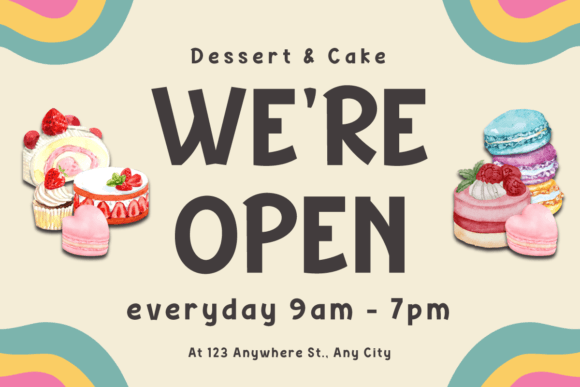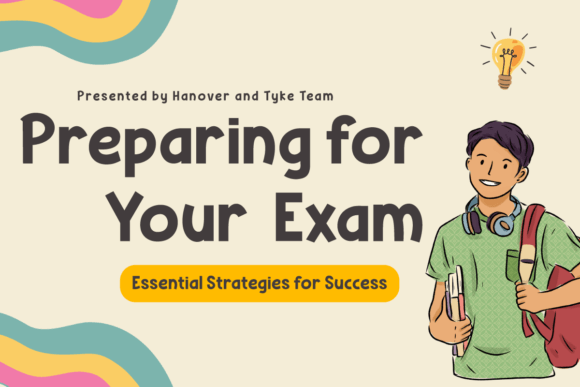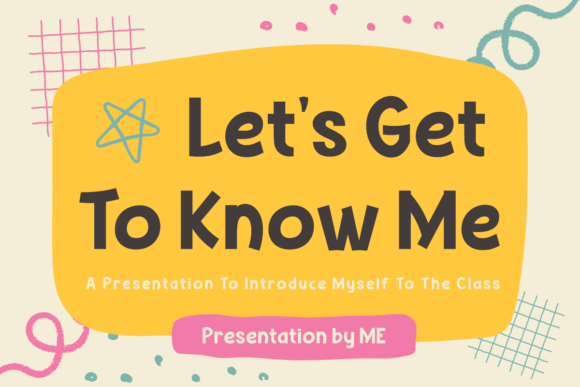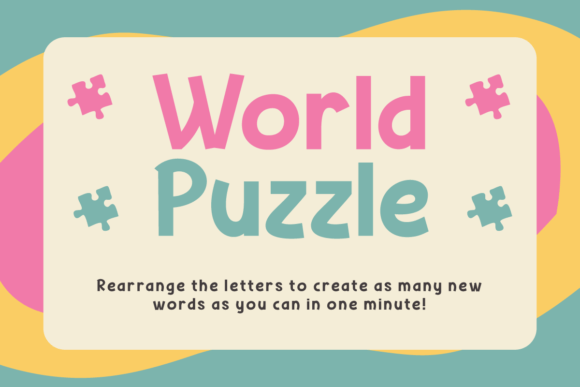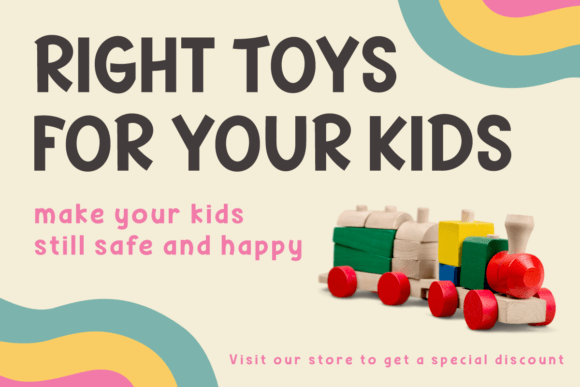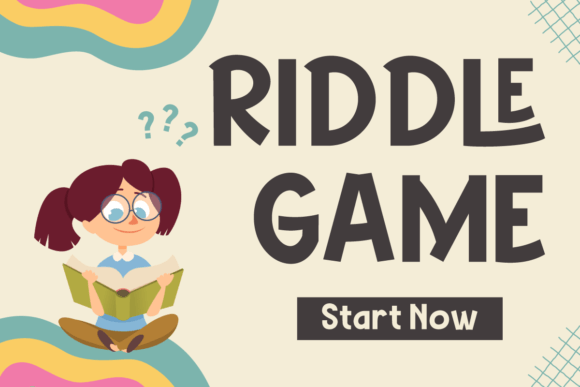
Introduction to Lonarue Font Font
Fonts play a crucial role in design, and the Lonarue Font font is a typeface that brings both character and versatility to any project. Whether you’re working on a branding project, a website, or a print design, the Lonarue Font font offers a unique style that can elevate your work.
Introducing βLonarue Fontβ β Where Playfulness Takes Center Stage.
Lonarue Font is your passport to a world of creativity and fun in typography This whimsical typeface is carefully crafted to bring joy and a touch of playfulness to your designs.
Key Features of Lonarue Font Font
Why Choose Lonarue Font Font?
The Lonarue Font font is more than just a typeface β it’s a design tool that helps you communicate your message with style and clarity. Its unique character set and versatile design make it suitable for a wide range of applications, from elegant invitations to bold headlines.
With its carefully crafted letterforms and balanced proportions, the Lonarue Font font ensures readability and visual appeal across all mediums.
What makes Lonarue Font font special?
The Lonarue Font font stands out with its unique design, exceptional readability, and versatility across various design applications.